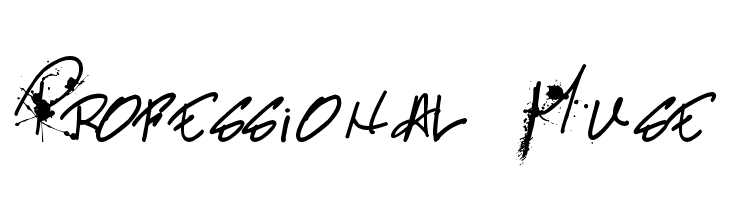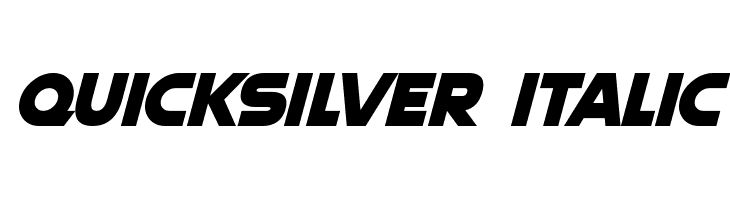
A playful, pixelated bubble font with a retro digital aesthetic.
A bold, angular serif font with geometric elements and uppercase uniformity.
A bold, geometric font with a modern, futuristic style.
A playful, bold typeface with chunky, rounded characters and a whimsical style.
A bold, distressed font with a hand-drawn, textured style.
A bold, playful font with a whimsical, cartoon-like style.
A bold, geometric font with a retro yet modern appeal.
A bold, futuristic font with rounded edges and consistent stroke width.
A modern, italic sans-serif font with a sleek and dynamic style.
Playful handwritten font with a casual style.
A modern, italicized font with smooth curves and consistent stroke width.
Bold and playful rounded font.
A dynamic, expressive handwritten font with fluid, irregular strokes.
A geometric, angular font with a mechanical and industrial style.
A bold, grunge-textured script font with a rustic and vintage appeal.
A playful, bold font with rounded, bubbly characters and a hand-drawn feel.
A futuristic, geometric font with bold, clean lines and squared edges.
A bold, expressive script font with dynamic strokes and artistic flair.
A bold, rounded sans-serif font with smooth curves and a modern look.
A bold, angular font with a dynamic and aggressive style.
A textured, hand-drawn font with a bold, artistic style.
A dot matrix style font with a retro digital aesthetic.
A dot matrix style font with a digital, modern aesthetic.
A bold, Gothic-inspired font with sharp, angular edges and intricate detailing.
A playful, handwritten font with smooth, rounded strokes and a casual style.
A playful, bold font with rounded edges and a casual, friendly style.
A playful handwritten font with bold, dynamic strokes and a casual style.
A futuristic, geometric font with a digital aesthetic.
A bold, playful font with irregular, geometric shapes and a dynamic style.
A bold, rugged font with a distressed texture and commanding presence.